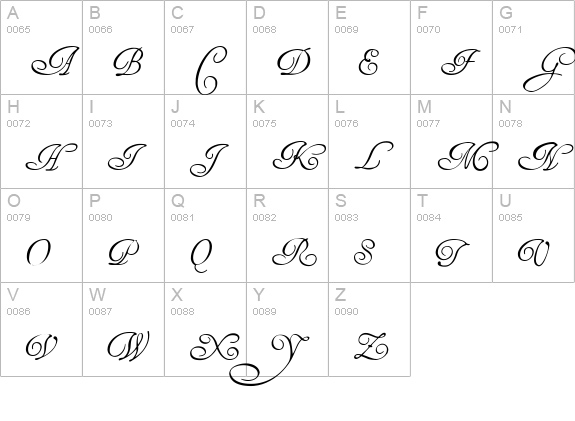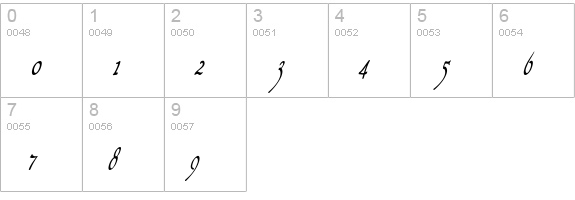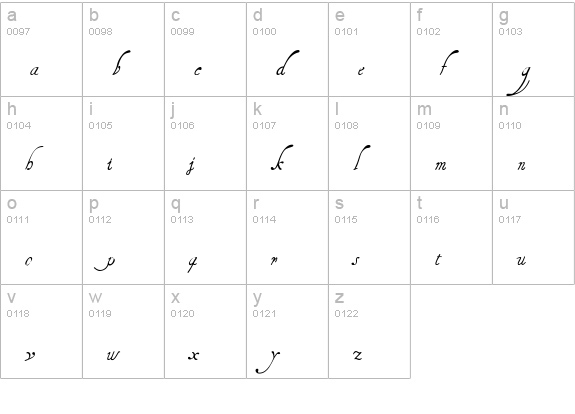
HenryMorganHand Font Details
Introducing HenryMorganHand font, a charming and playful typeface perfect for adding a touch of whimsy to your designs. This unique font features irregular strokes and a hand-drawn aesthetic, giving your projects a delightful handmade feel. Whether you're creating invitations, greeting cards, or branding materials, HenryMorganHand font is sure to stand out. The best part? HenryMorganHand font is completely free to download at FontsMarket.com. Embrace the creativity and individuality of this font without any cost. Don't miss out on this opportunity to elevate your designs with the free-spirited charm of HenryMorganHand font. Download it today and let your creativity soar!